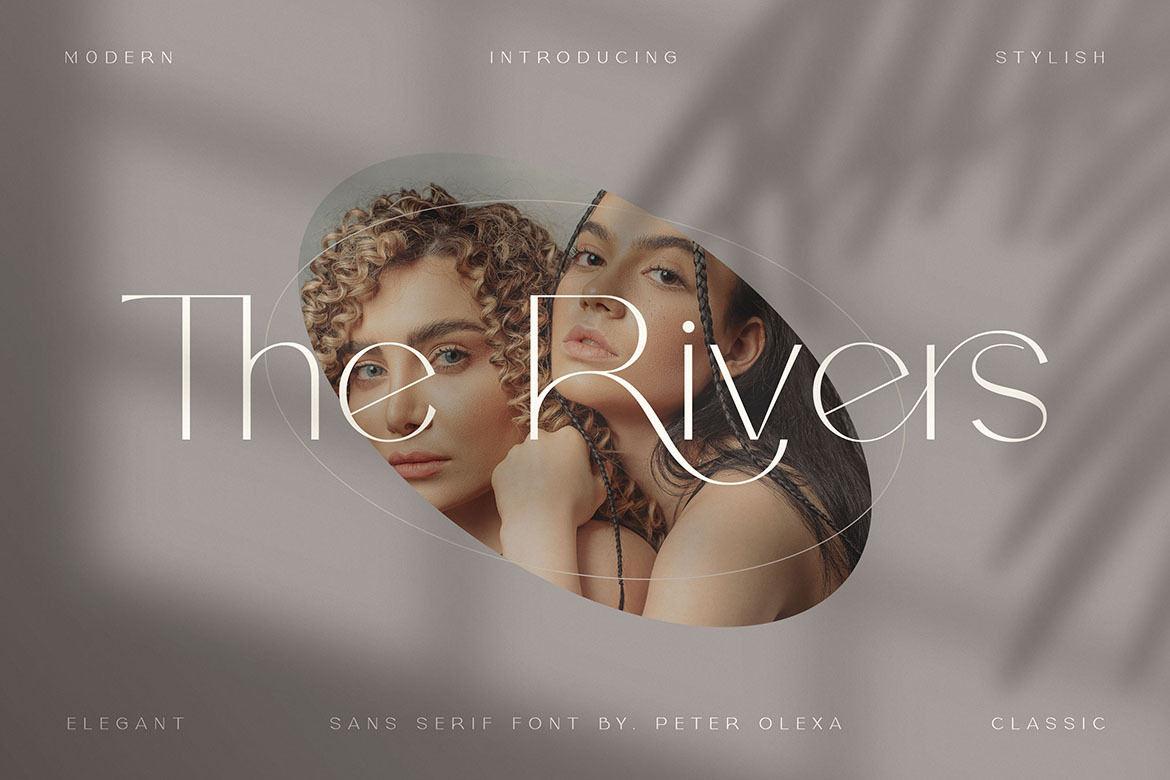
The Rivers - Modern Sans Font
Trendy or modern style sans font for your fancy projects. Elegant, thin and fashion style on The Rivers font will be great for any branding project. Lot of alternates and ligatures will help you to create unique and original logo design or website header! Enjoy :)
- 2 styles: Regular & Italic
- Lot of alternate characters
- Lot of ligatures
- Great for modern branding projects!